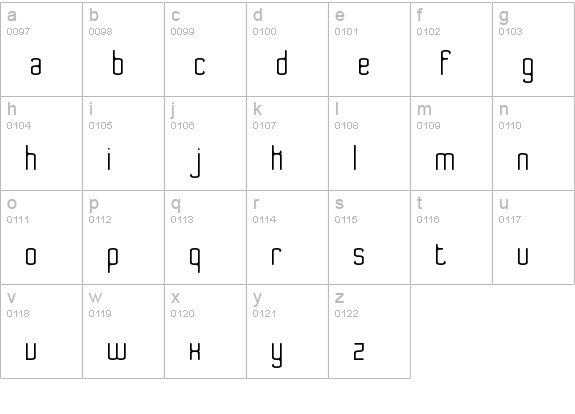
Bend 2 Squares BRK font is a modern and bold typeface that will make your designs stand out. With its unique geometric shapes and sharp edges, this font exudes a sense of strength and innovation. Whether you are creating a logo, poster, or website, Bend 2 Squares BRK font will add a touch of sophistication to your project. The best part is that Bend 2 Squares BRK font is available for free download at FontsMarket.com. This means you can easily access this stylish font and use it in your designs without any cost. Don't miss out on this opportunity to enhance your creative projects with the striking Bend 2 Squares BRK font. Download it today and let your designs make a bold statement!